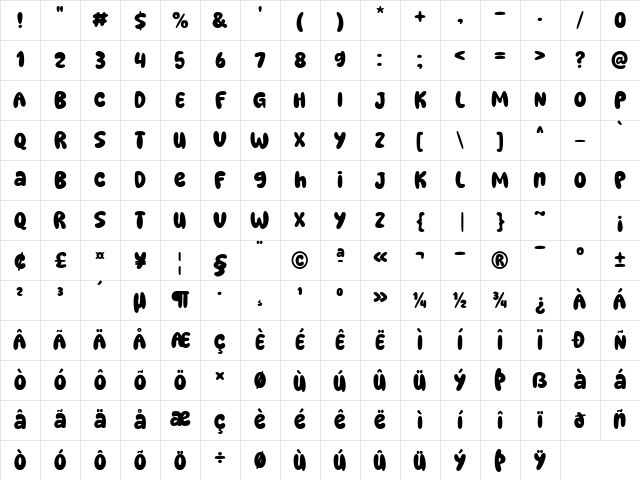
Super Jellyfish Regular Free Font
Super Jellyfish Regular
Complete Super Jellyfish Regular glyph index. Displaying only characters natively supported by Super Jellyfish Regular font.
Design Context for Super Jellyfish
Super Jellyfish is a composed and adaptable typeface that performs quietly and consistently across a wide range of design contexts.
Pro Tip: Use Super Jellyfish in both headline and body roles to test its range before committing to a single application.